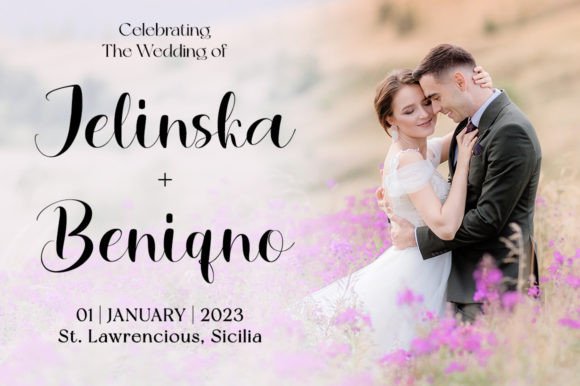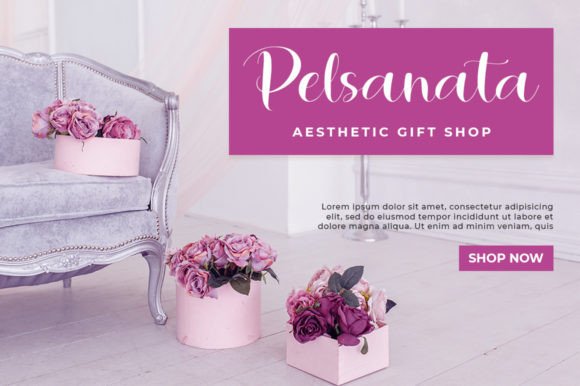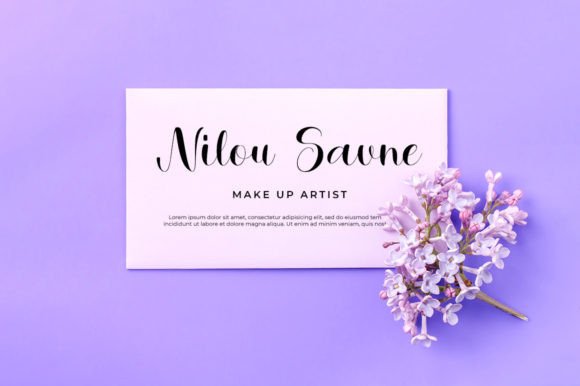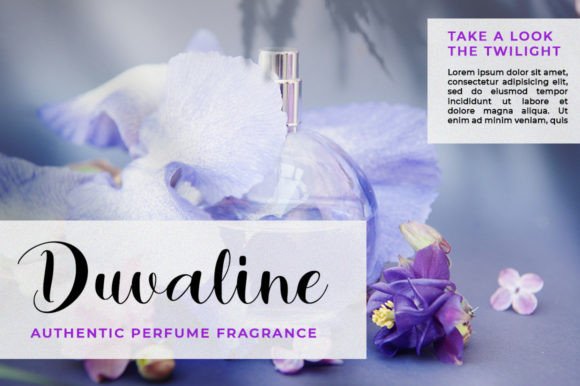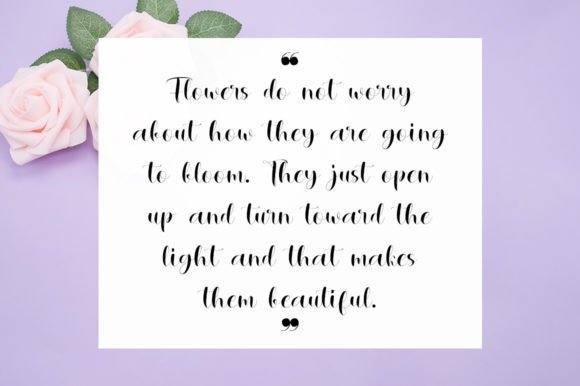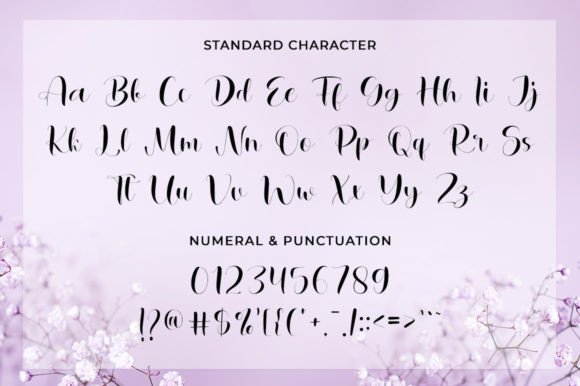
Introducing Anemolive Font: The Sweet and Delicate Handwritten Font for Romantic Designs
Are you a designer or crafter looking for a font that can add a touch of romance and personality to your designs? Look no further than Anemolive Font! This sweet and delicate handwritten font is perfect for creating beautiful wedding invitations, cards, and other designs that require a personal and emotional touch.
What is Anemolive Font?
Anemolive Font is a modern handwritten font that is characterized by its dainty and joyful appearance. The font features elegant and flowing lines, making it perfect for creating romantic and whimsical designs. Its unique and distinctive style sets it apart from other fonts, making it an excellent choice for designers who want to create something truly special.
Features of Anemolive Font
Anemolive Font comes with a range of features that make it an ideal choice for designers and crafters. Some of its key features include:
- Sweet and delicate appearance: Anemolive Font has a sweet and delicate appearance that makes it perfect for creating romantic designs.
- Handwritten style: The font features a handwritten style that gives it a personal and emotional touch.
- Dainty and joyful: Anemolive Font is characterized by its dainty and joyful appearance, making it perfect for creating whimsical designs.
- Easy to read: Despite its delicate appearance, Anemolive Font is easy to read, making it perfect for creating designs that require a clear and legible font.
Uses of Anemolive Font
Anemolive Font is a versatile font that can be used for a range of design projects. Some of its most popular uses include:
- Wedding invitations: Anemolive Font is perfect for creating beautiful and romantic wedding invitations that set the tone for the big day.
- Cards and stationery: The font is also great for creating cards and stationery that require a personal and emotional touch.
- Branding and packaging: Anemolive Font can be used for branding and packaging designs that require a unique and distinctive font.
- Digital designs: The font can also be used for digital designs, such as social media graphics and blog posts.
Why Choose Anemolive Font?
There are many reasons why designers and crafters choose Anemolive Font for their design projects. Some of the benefits of using this font include:
- Unique and distinctive style: Anemolive Font has a unique and distinctive style that sets it apart from other fonts.
- High-quality design: Anemolive Font is designed to high standards, ensuring that it looks great in any design project.
Tips for Using Anemolive Font
To get the most out of Anemolive Font, here are some tips for using it in your design projects:
- Use it for titles and headings: Anemolive Font is perfect for titles and headings, where its elegant and flowing lines can really shine.
- Pair it with other fonts: The font can be paired with other fonts to create a unique and interesting design.
- Experiment with different colors: Anemolive Font looks great in a range of colors, so don’t be afraid to experiment and find the perfect color for your design.
- Use it for digital designs: The font can be used for digital designs, such as social media graphics and blog posts, to add a personal and emotional touch.
In conclusion, Anemolive Font is a sweet and delicate handwritten font that is perfect for creating romantic and whimsical designs. Its unique and distinctive style, ease of use, and high-quality design make it an excellent choice for designers and crafters. Whether you’re creating wedding invitations, cards, or other designs, Anemolive Font is sure to add a touch of personality and emotion to your work.